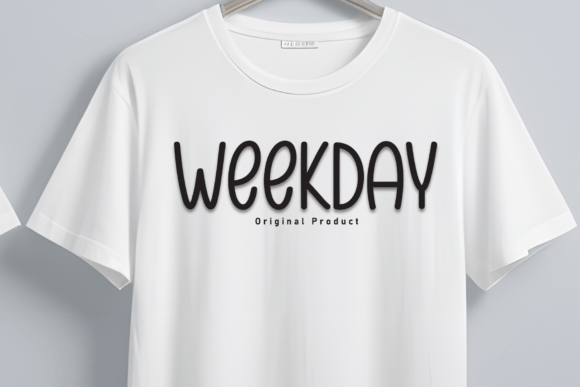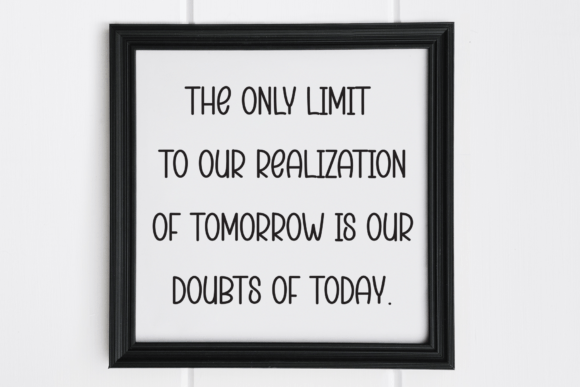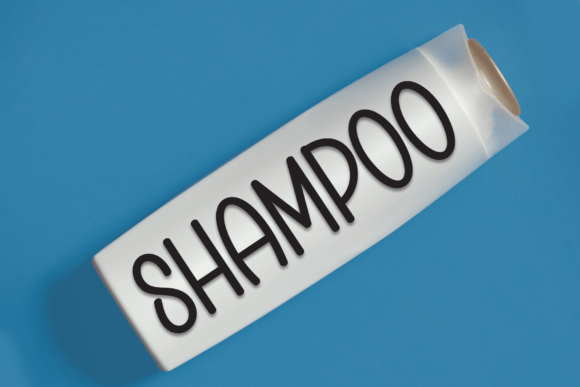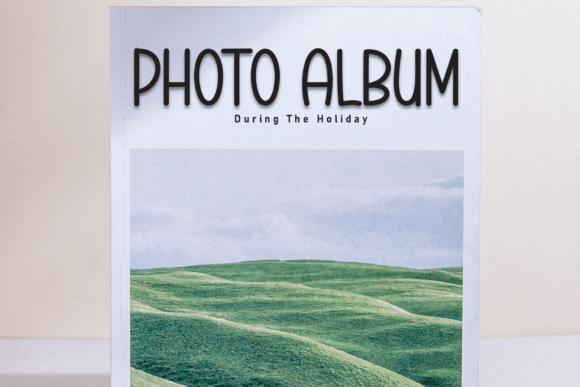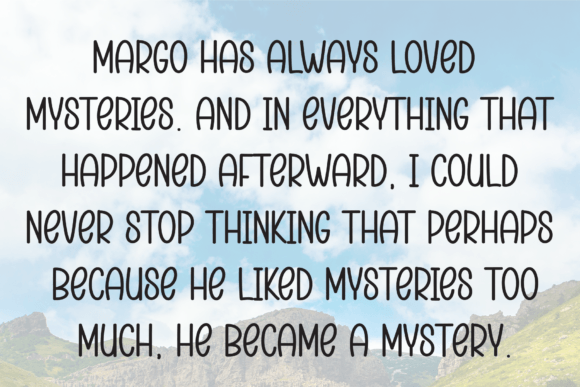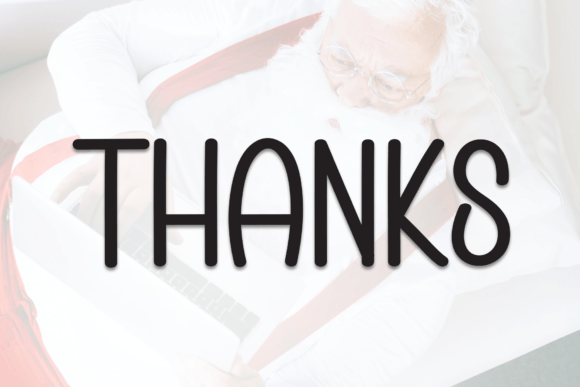
Introducing Daily Santa Font: A Delightfully Whimsical Addition to Your Designs
Are you looking for a font that can add a touch of magic to your designs? Look no further than Daily Santa Font, a handwritten display font that exudes a sweet and friendly aura. With its charmingly inviting style, this font is perfect for designers and crafters who want to bring a dash of fun and a sprinkling of charm to their creative projects.
The Characteristics of Daily Santa Font
Daily Santa Font is a beautifully crafted handwritten font that boasts a soft, casual elegance. Its personable style makes it perfect for a wide range of design applications, from wedding invitations and greeting cards to playful notes and other creative projects. The font’s whimsical nature is sure to delight audiences of all ages, making it an excellent choice for designers who want to create engaging and memorable designs.
Uses for Daily Santa Font
One of the best things about Daily Santa Font is its versatility. This font can be used for a wide range of design projects, including:
- Wedding invitations and stationery: Add a touch of romance and whimsy to your wedding designs with Daily Santa Font.
- Greeting cards: Create beautiful and playful greeting cards for special occasions like birthdays, holidays, and more.
- Playful notes and labels: Use Daily Santa Font to add a dash of fun and personality to your notes, labels, and other design elements.
- Branding and packaging: This font is perfect for brands that want to convey a friendly and approachable image.
Why Choose Daily Santa Font?
So, why should you choose Daily Santa Font for your design projects? Here are just a few reasons:
- Unique and eye-catching: Daily Santa Font is a one-of-a-kind font that is sure to grab attention and make your designs stand out.
- Easy to read: Despite its whimsical nature, Daily Santa Font is surprisingly easy to read, making it perfect for body text and other applications where legibility is important.
- Versatile: This font can be used for a wide range of design projects, from formal wedding invitations to playful greeting cards.
- High-quality: Daily Santa Font is a high-quality font that is designed to deliver exceptional results in any design application.
Tips for Using Daily Santa Font
To get the most out of Daily Santa Font, here are a few tips to keep in mind:
- Use it sparingly: While Daily Santa Font is a beautiful font, it can be overwhelming if used too much. Use it sparingly to add a touch of whimsy to your designs.
- Pair it with other fonts: Daily Santa Font pairs well with other fonts, especially serif and sans-serif fonts. Experiment with different pairings to find the one that works best for your design.
- Experiment with colors: Daily Santa Font looks great in a variety of colors, from bright and bold to soft and pastel. Experiment with different colors to find the one that works best for your design.
In conclusion, Daily Santa Font is a delightfully whimsical and charmingly inviting font that is perfect for designers and crafters who want to add a touch of magic to their designs. With its soft, casual elegance and personable style, this font is sure to enhance any creative project. Whether you’re designing wedding invitations, greeting cards, or playful notes, Daily Santa Font is a great choice. So why not give it a try and see the difference it can make in your designs?